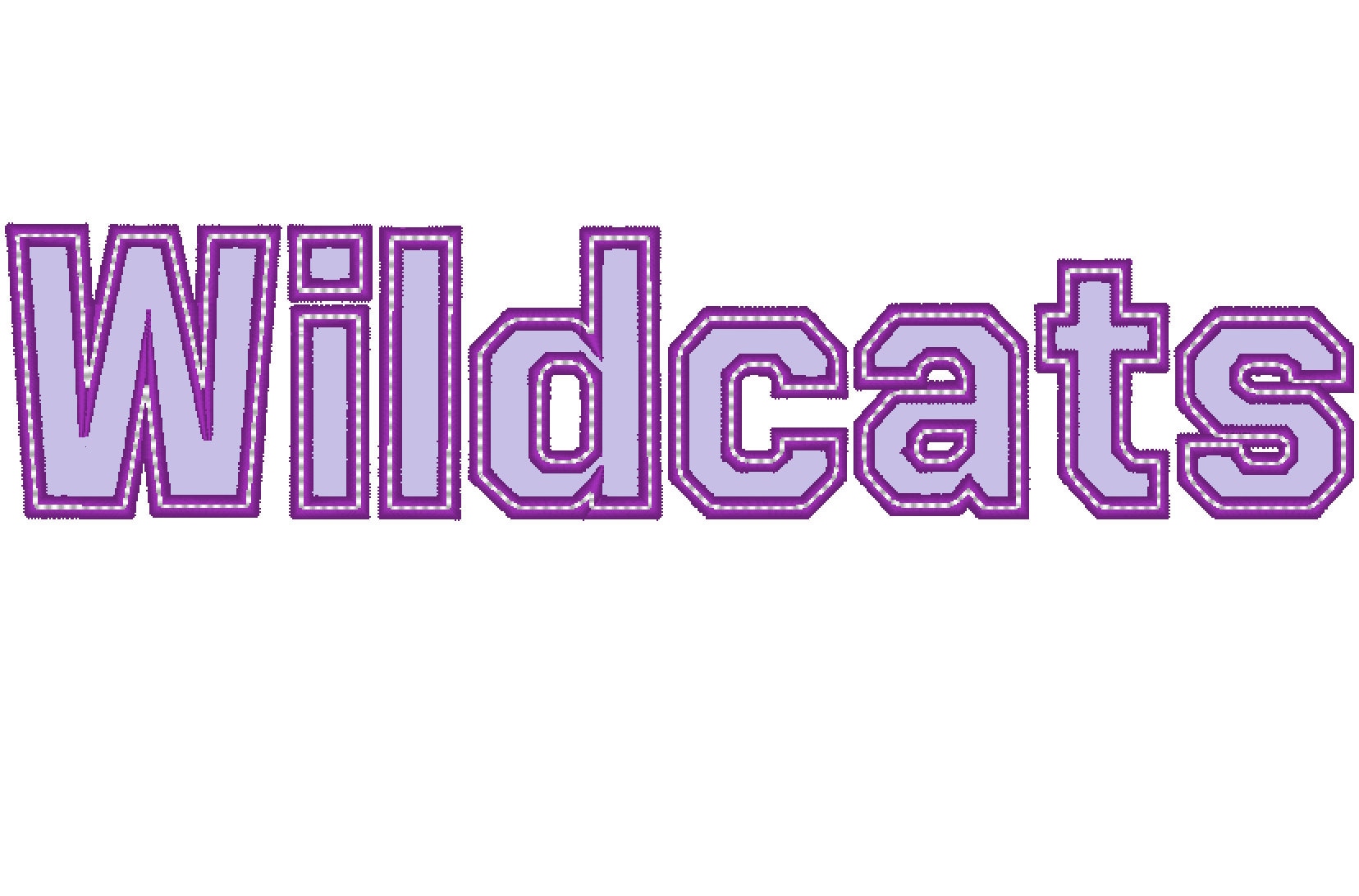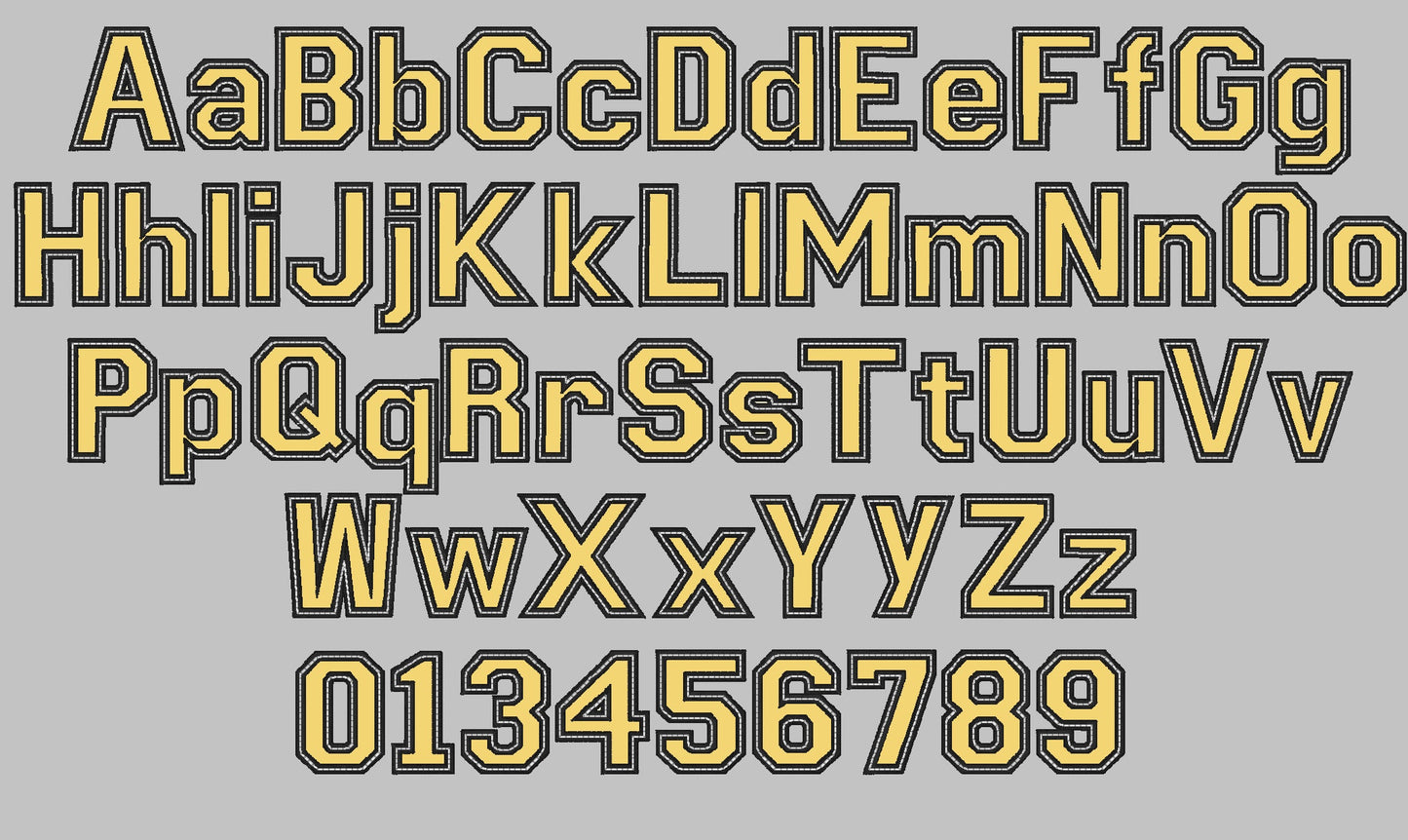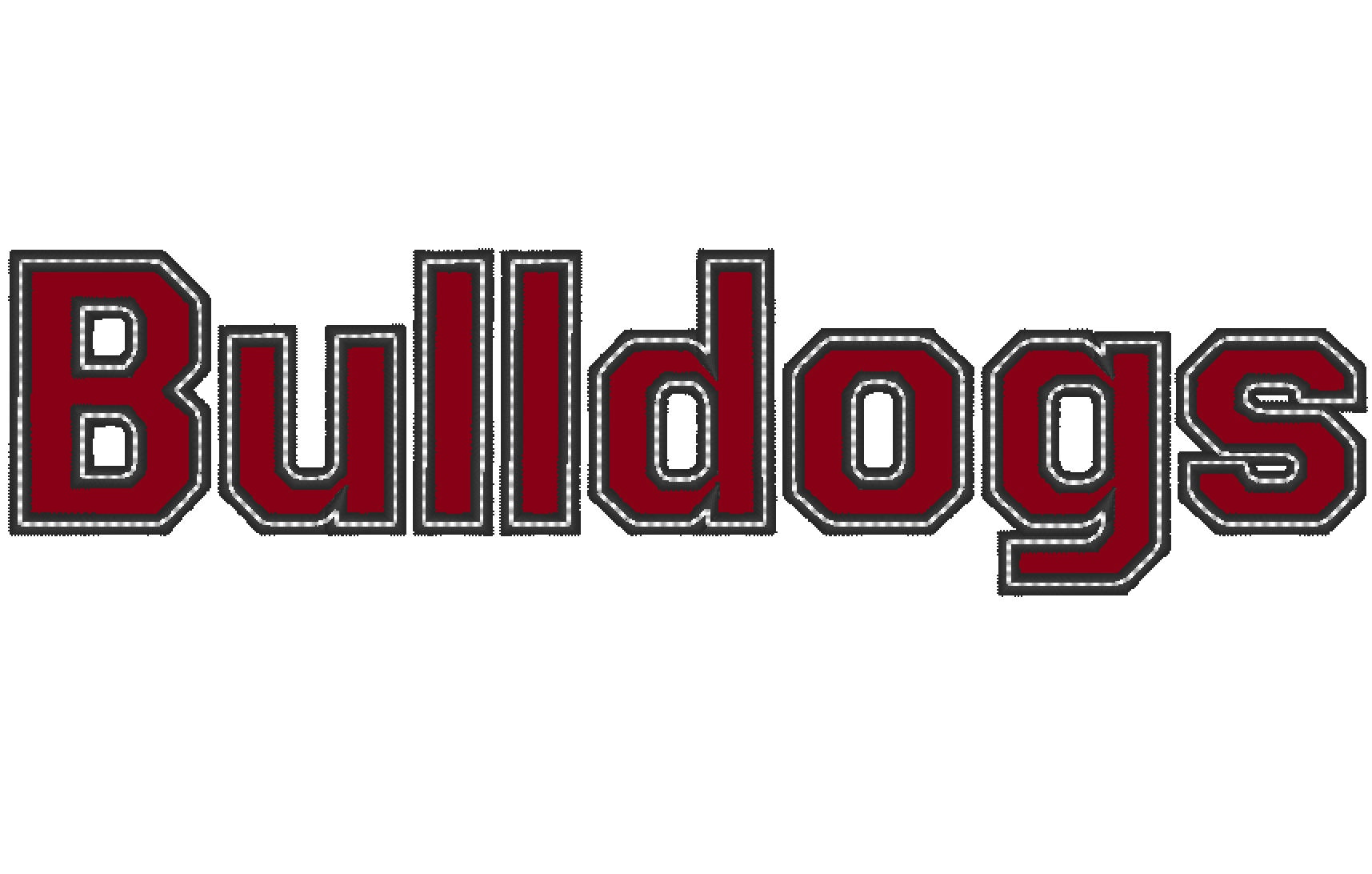
Or click to open the linkBlock athletic Collegiate team school applique Sport Font machine embroidery applique designs
Uppercase and lowercase letters and numbers.
Has wide nice wide satin applique stitch and top triple stitch on top for a neat look and secure while washing. Can be skipped!